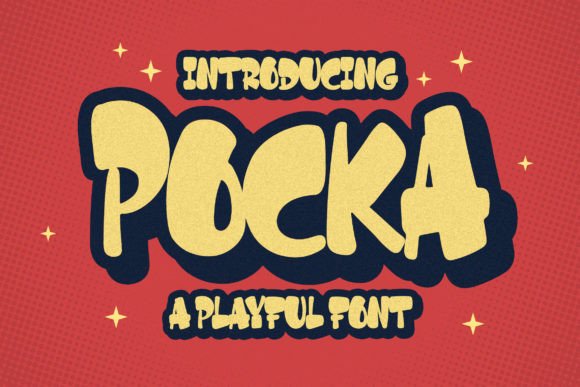
Unleash the captivating magic of Pocka—a playful font that will ignite your imagination and transport your designs to a realm of pure creative bliss. Whether you seek to craft a captivating book cover, design an enchanting poster, or elevate your packaging and merchandise to new heights, Pocka stands ready as your trusted partner.
With its playful and bold character, Pocka possesses an uncanny ability to capture attention and leave a lasting impression. Inspired by the captivating allure of playful typography, this font boasts a delightful aesthetic that makes your designs shine with an irresistible charm. Its meticulous craftsmanship ensures that every letter, every stroke, and every curve exudes a sense of playful elegance, making Pocka the perfect choice for designers seeking to inject a touch of lightheartedness and creativity into their projects.
Escape the mundane and embrace the extraordinary with Pocka—a font that embodies the spirit of boundless imagination. Let your creativity run wild as you explore the endless possibilities that Pocka unlocks. Its versatility knows no bounds, making it an ideal companion for a diverse range of projects, including logotypes, posters, packaging designs, and merchandise.
Dive into the world of Pocka and discover a font that speaks to your playful side. Its multilingual support ensures that you can captivate audiences across borders and cultures. With support for a wide range of languages, including Afrikaans, Albanian, Dutch, English, Finnish, French, German, Italian, Portuguese, Spanish, Swahili, and Zulu, Pocka empowers you to communicate your message to the world with captivating flair.